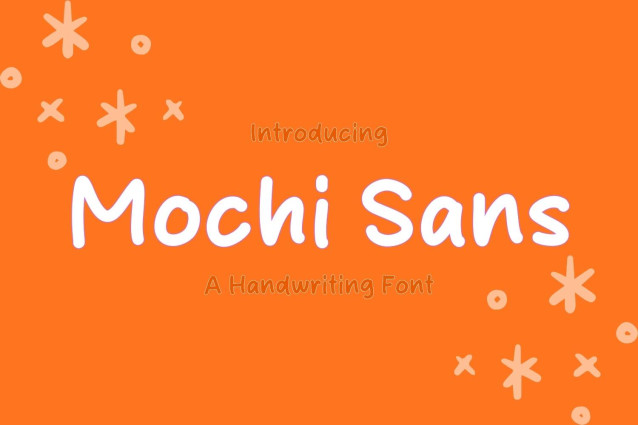
Mochi Sans Script Font
Mochi Sans Script Font is a simple and friendly handwritten font. Its natural and unique style makes it incredibly fitting to a large pool of designs. The only limit is your imagination!